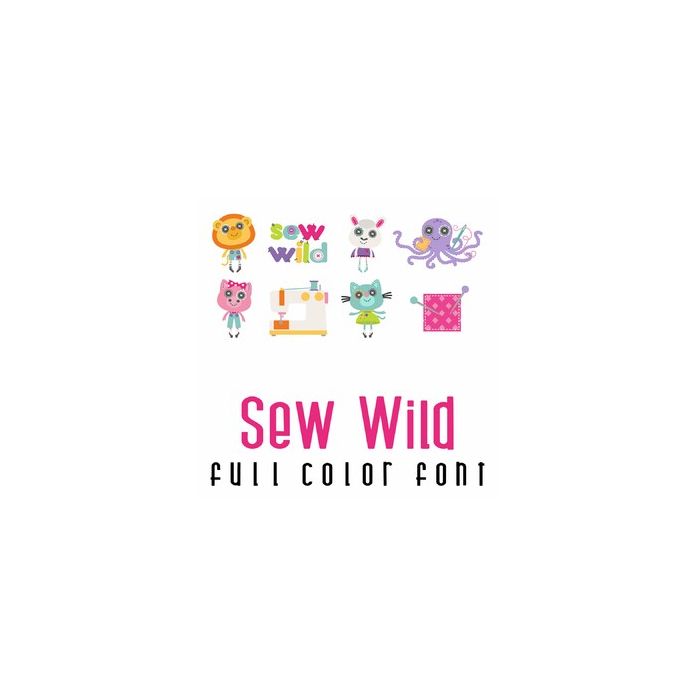
This adorable full-color doodlebat font features 26 animal-sewn images. Perfect for parties, decor, scrapbook pages, planner stickers, gifts and more!